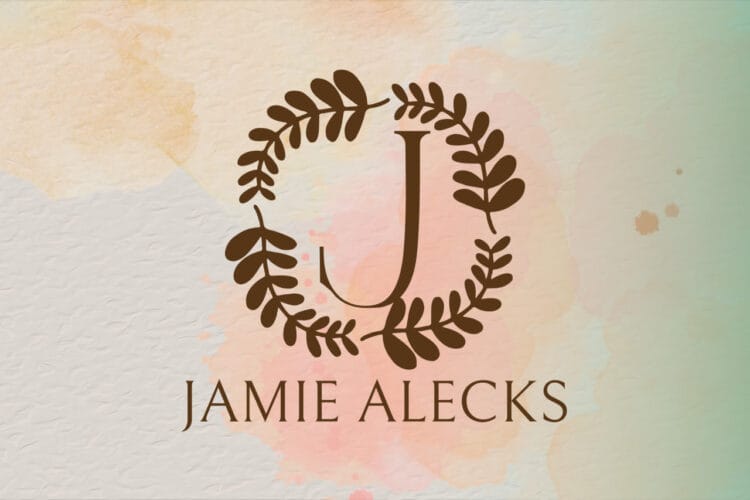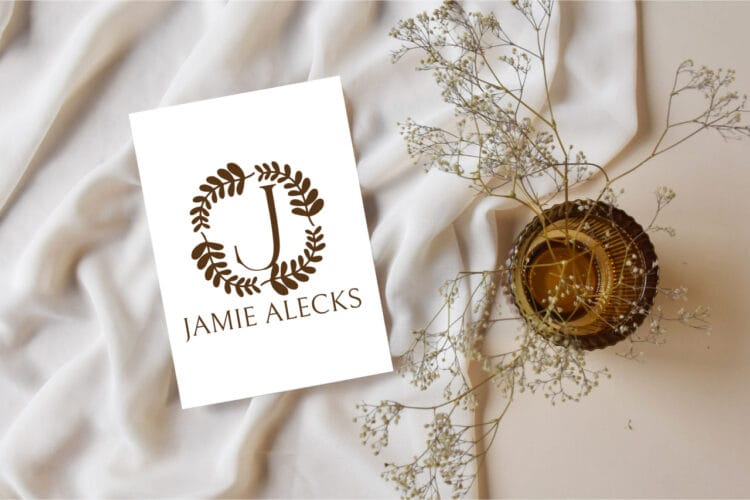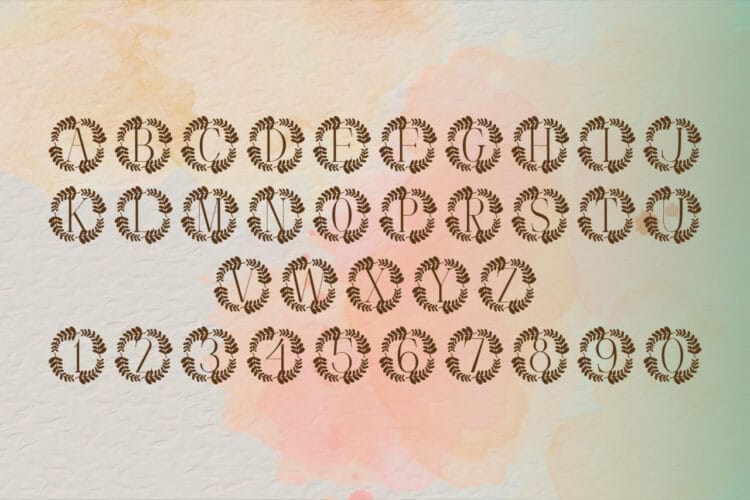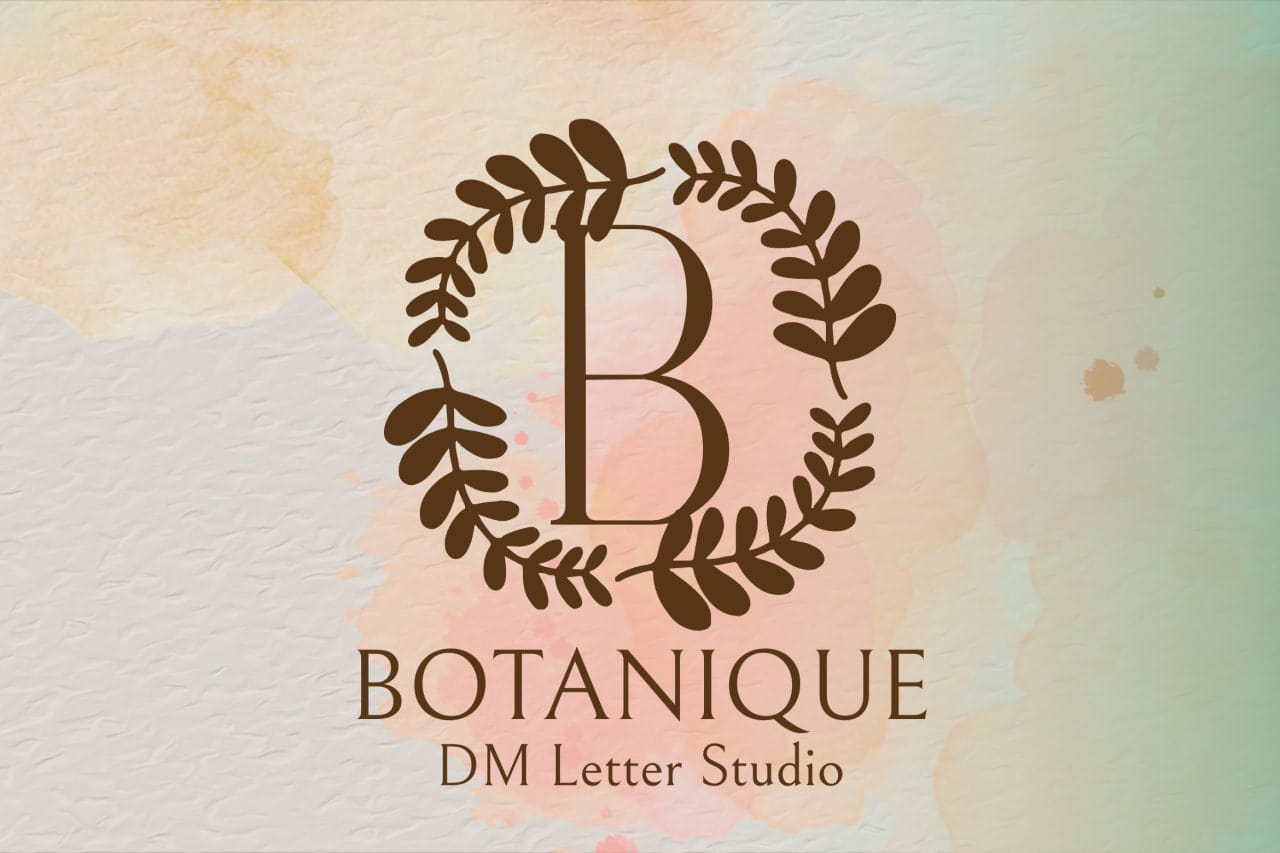
Meet Botanique Monogram, the Monogram Font
Botanique Monogram Font transforms initials into elegant botanical emblems inspired by leaves, stems, and natural balance. The letterforms feel organic, graceful, and softly decorative. At the same time, they remain clean and highly readable. Because the shapes are open and well spaced, the font performs clearly at small sizes. Meanwhile, it feels rich and expressive on larger prints. As a result, Botanique Monogram is ideal for weddings, nature-inspired branding, stationery, and premium gift designs.
Where this monogram font shines
Use single, double, or triple initials for logos, invitations, menus, place cards, and seals. Because the botanical details are subtle and balanced, layouts feel refined rather than busy. For example, you can place the monogram inside circles, wreaths, arches, or soft organic frames. In addition, Botanique Monogram keeps a cohesive look across invitations, labels, boxes, ribbons, and gift tags. Whether used on small stickers or large signage, it scales smoothly and stays elegant.
Design tips for Botanique Monogram
Keep the initials generous and allow white space to breathe. This enhances the natural flow of the botanical forms. Pair the monogram with a classic serif or a clean sans serif for names and dates. Also, textured paper, recycled stock, vellum layers, and soft metallic foils elevate the organic feel. Because the design already feels decorative, keep wording short. That way, the monogram remains the hero on seals, favors, and small packaging.
Botanical-inspired monogram letterforms
Select stylistic alternates for key letters
Curves optimized for foil, letterpress, engraving, laser cutting, and clean vinyl paths
Why creators choose this monogram font
You want a monogram that feels natural, elegant, and easy to use. At the same time, you need clarity across many formats. That is why Botanique Monogram Font is a trusted choice. It blends organic beauty with practical structure. In the end, your designs feel calm, polished, and timeless.